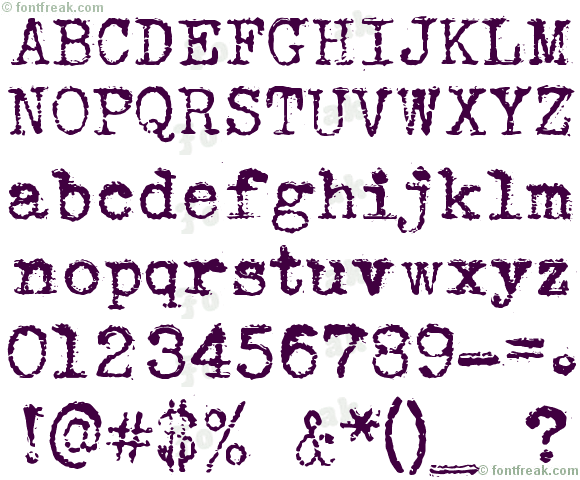
Sears Tower
About Sears Tower
The Sears Tower font, designed by Michael Tension in 2010, is a striking display typeface that captures attention with its unique visual characteristics. This typeface features a bold, rugged style reminiscent of vintage signage, making it an ideal choice for projects that aim to evoke nostalgia or a sense of urban grit. The font showcases a heavy stroke weight with a moderate contrast, giving it a sturdy and impactful presence. Its slightly irregular spacing adds to its handmade quality, enhancing its charm and character.
The Sears Tower font is versatile and can be utilized in various design contexts. It works beautifully for restaurant menus, where it can convey a casual yet stylish atmosphere, and is perfect for movie posters, adding a dramatic flair to the title. Additionally, it can be an excellent choice for branding small businesses, particularly those in creative fields like artisanal shops or vintage boutiques. Content creators will also find it useful for social media graphics, where its distinctive look can help stand out in crowded feeds.
What sets the Sears Tower font apart is its ability to blend boldness with a touch of warmth, making it suitable for both serious and playful contexts. Its distinctive character ensures that any text set in this font will not only be readable but will also resonate with viewers, making it a standout choice for diverse applications.